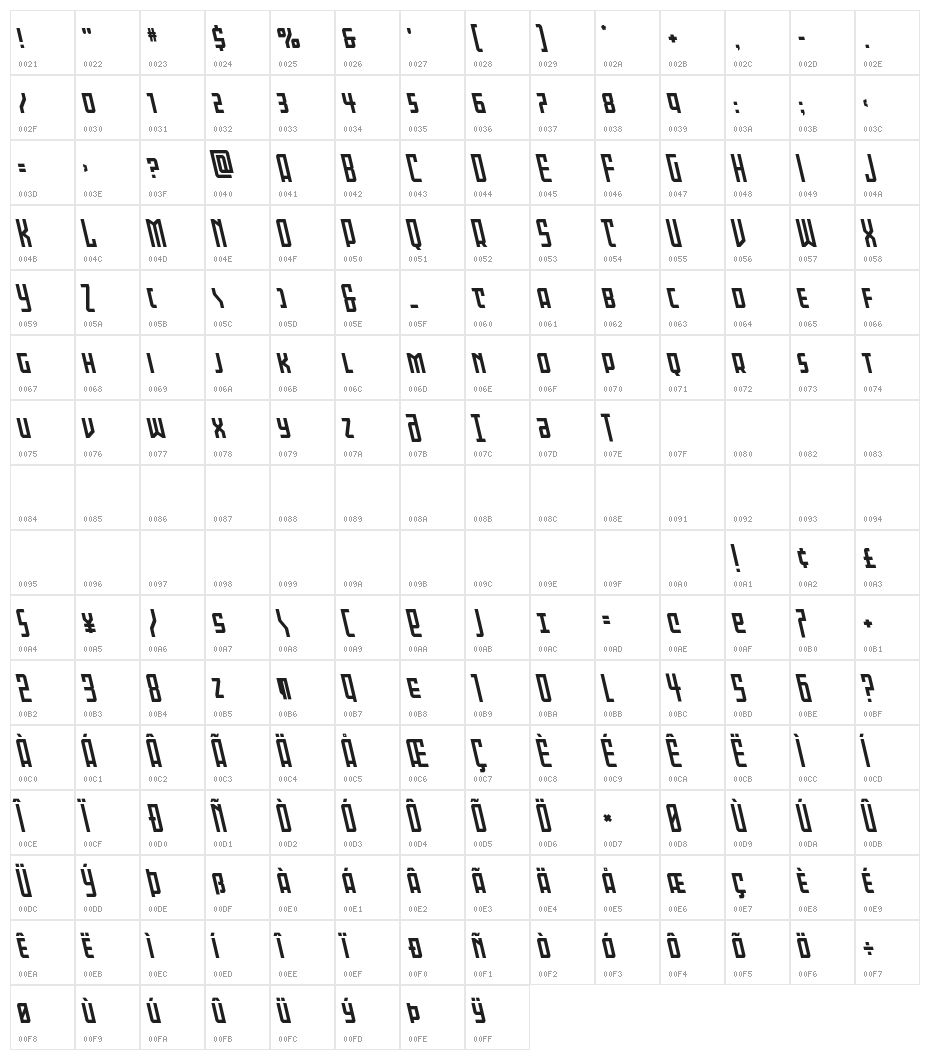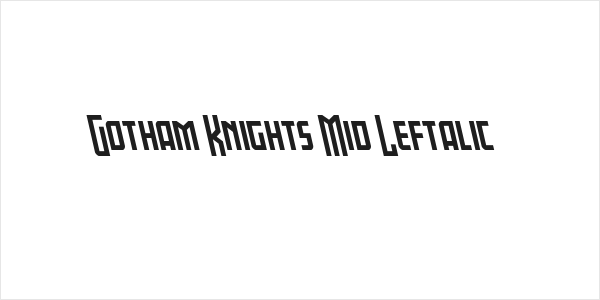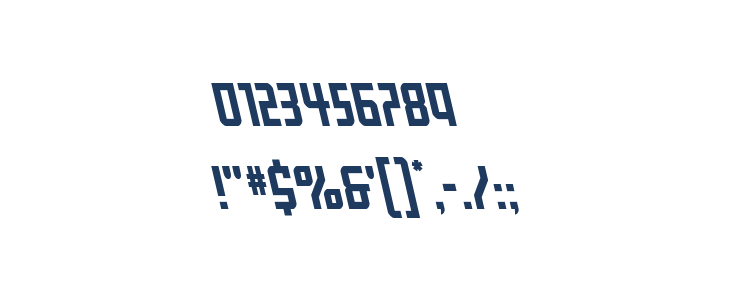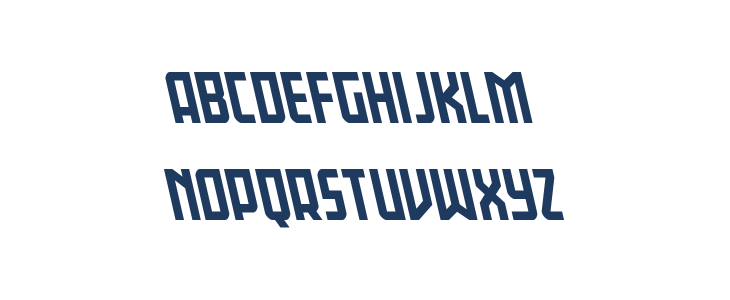
Gotham Knights Mid Leftalic Font
Gotham Knights Mid Leftalic Description
This font features a bold and dynamic style with a distinct slant, giving it a sense of motion and energy. The characters are blocky and geometric, with sharp angles and a uniform thickness throughout. The uppercase and lowercase letters maintain a consistent height, contributing to a cohesive and structured appearance. Numbers and special characters are designed to match the boldness and angularity of the letters, ensuring a harmonious overall look. The font's strong presence makes it ideal for impactful designs.